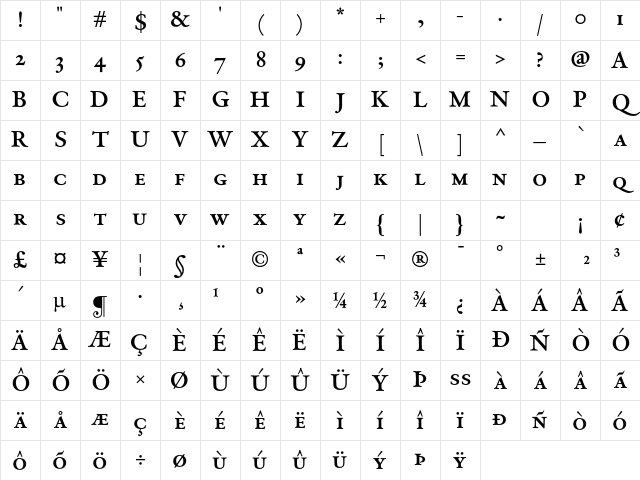
Complete DTL VandenKeere D Caps Bold glyph index. Displaying only characters natively supported by DTL VandenKeere D Caps Bold font.
DTL VandenKeere is a composed and adaptable typeface that performs quietly and consistently across a wide range of design contexts. Its bold stroke weight gives it real presence on the page.
Who designed the DTL VandenKeere D Caps Bold font?